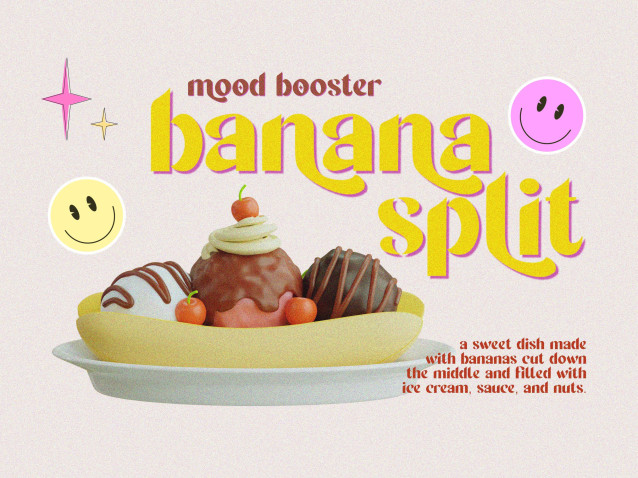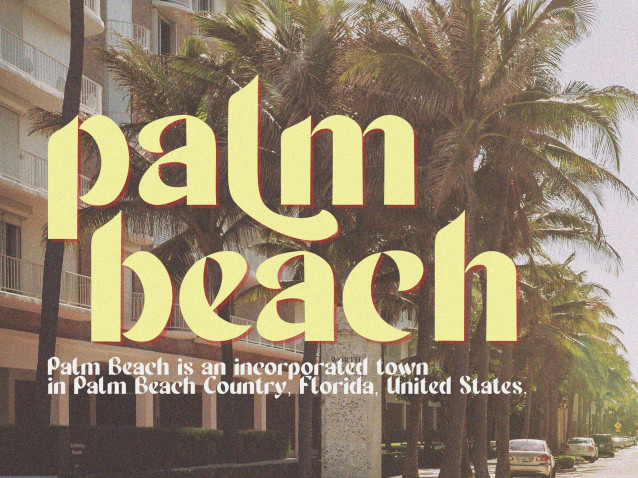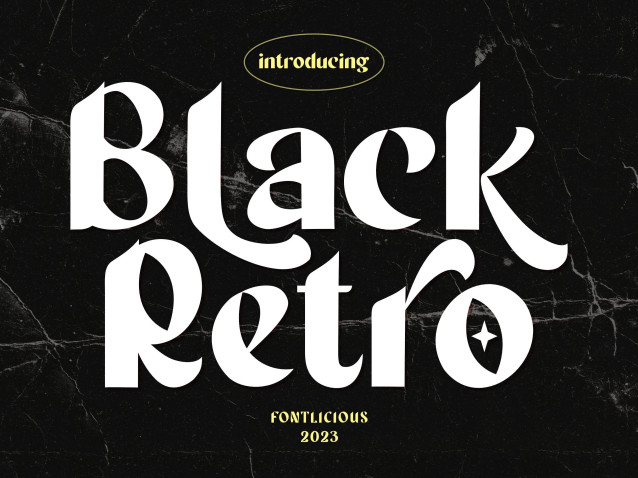
Black Retro Font
Black Retro Font, a high-impact display font that blends vintage soul with modern edge. Inspired by classic signage and retro typography, this typeface is perfect for designers who crave drama, elegance, and a touch of rebellion.